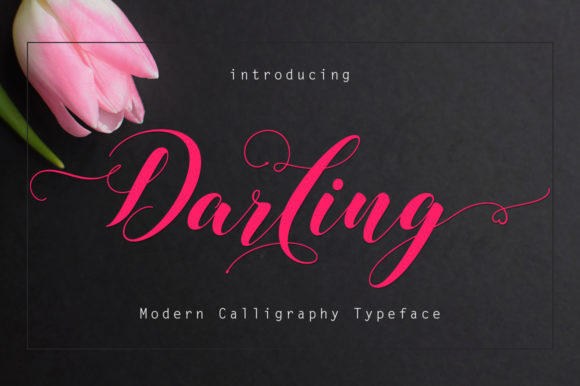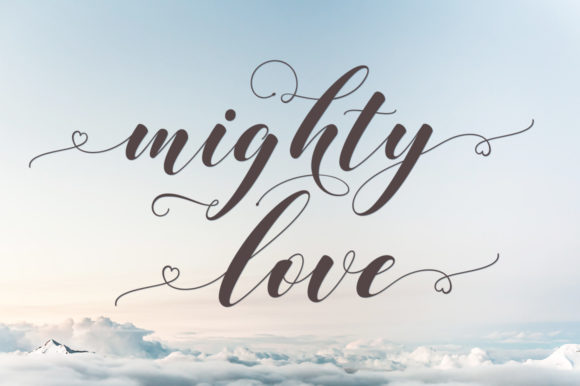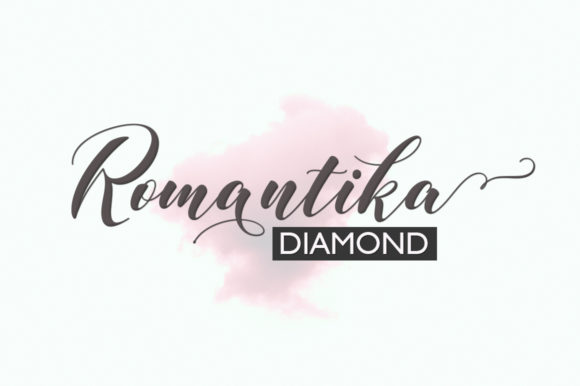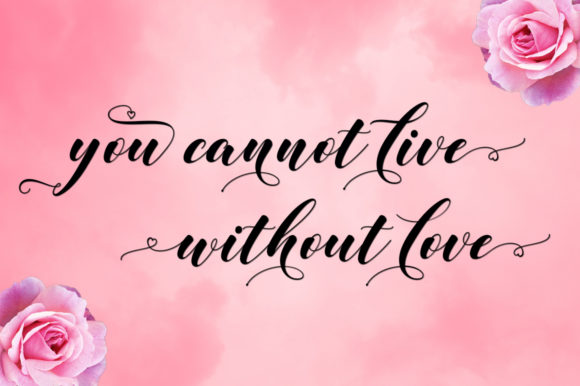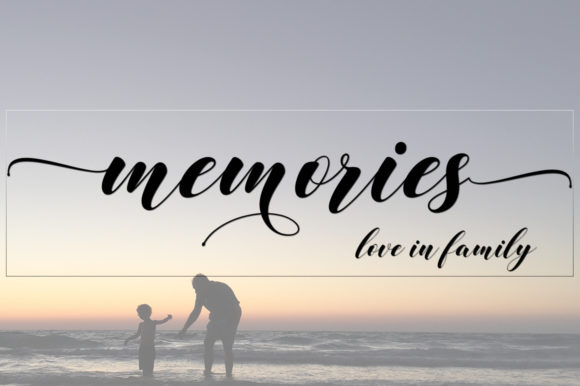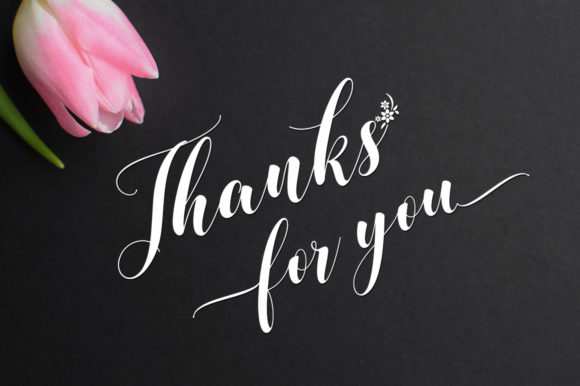
HomeScript FontsDarling Font Script Fonts Darling Font FacebookXPinterestWhatsApp Darling Font Poster 2 Darling Font Poster 3 Darling Font Poster 4 Darling Font Poster 5 Darling Font Poster 6 About Darling Font Darling is a sweet and delicate script font with a beautiful feel. Get inspired by its unique charm! DOWNLOAD ON CREATIVE FABRICAThis font is sold and delivered by Creative Fabrica. Font Canyon may earn a commission if you buy through this link. People also explored Naomi Font Lady Writer Font Mock-Up Farmhouse Sign Stories Font Danyla Font Without Font Quirina Ringnoxinzink Font Notebook Lecture Font 316 0 TagsDarling Font Previous articleVarethy FontNext articleDaniela Font LEAVE A REPLY Cancel reply Comment: Please enter your comment! Name:* Please enter your name here Email:* You have entered an incorrect email address! Please enter your email address here Website: Save my name, email, and website in this browser for the next time I comment. Personal Use Free BD Nokio Personal Use Free Read more about this font The Shocker Personal Use Free Read more about this font Cadosa Personal Use Free Read more about this font Wallabys Junior Personal Use Free Read more about this font BLOG Best Fonts for T-Shirt Design – Top 2025 Picks In 2025, t-shirt design has become more than just fashion—it's a form of self-expression. Whether you're... Top 7 Google Fonts Alternatives for Faster and Privacy-Friendly Web Design (2025) Top 10 Handwritten Fonts That Elevate Your Designs Where to Buy American Fonts Online in 2024